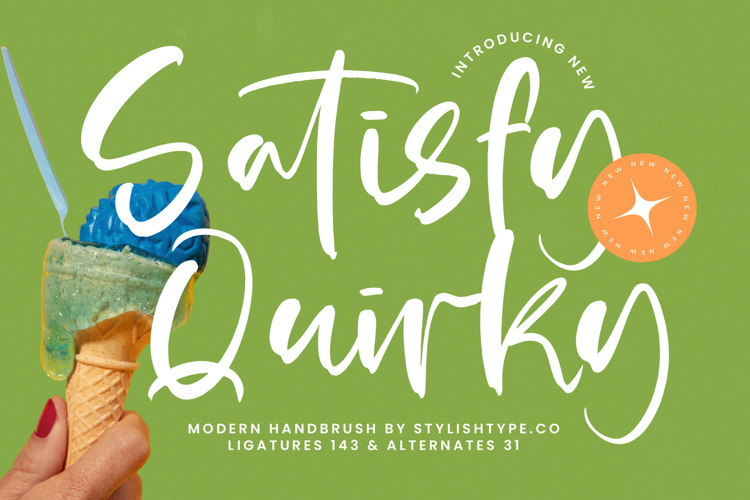
Satisfy Quirky - Modern Handbrush Font
Unleash authentic charm with Font Satisfy Quirky - Modern Handbrush Font Script, a truly captivating typeface designed to infuse your projects with an unmistakable touch of personality. This vibrant and expressive modern handbrush font masterfully blends the spontaneity of natural handwriting with a refined, contemporary aesthetic. Its fluid strokes and playful rhythm create an inviting visual appeal, making it an ideal choice for designs seeking a friendly yet professional impression.
Elevate your designs with the unparalleled versatility of Font Satisfy Quirky - Modern Handbrush Font Script. Boasting an impressive collection of 143 ligatures and 31 alternates, this font offers extensive creative freedom, allowing for truly customized and unique typographical compositions. These rich stylistic sets ensure that every headline, logo, or textual element feels bespoke, delivering a handcrafted look for distinctive branding.
Perfectly crafted for projects that demand individuality and warmth, Font Satisfy Quirky - Modern Handbrush Font Script excels in a myriad of applications. It's ideal for packaging design, such as food, beverage, or artisanal goods. This font is also exceptional for social media graphics, greeting cards, editorial layouts, and any branding initiative where a friendly, approachable, and memorable visual identity is key.
Expand your creative reach globally with the inherent adaptability of Font Satisfy Quirky - Modern Handbrush Font Script. With its extensive multilingual support, Font Satisfy Quirky - Modern Handbrush Font Script adapts seamlessly across global markets, making it incredibly versatile for international projects. Invest in this typeface to provide your audience with an engaging, accessible, and consistently high-quality typographic experience.